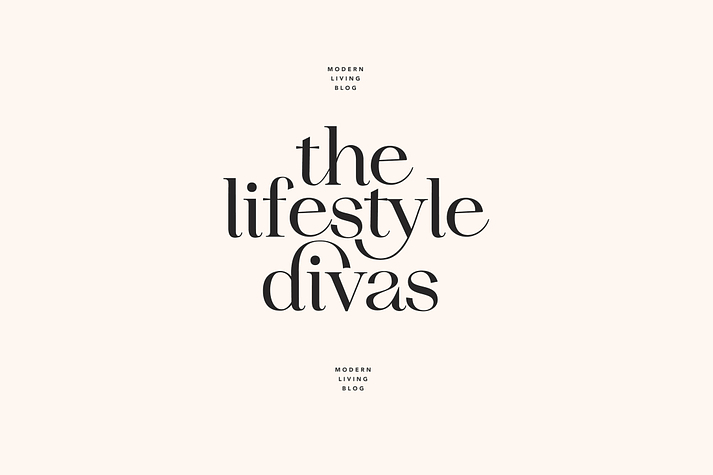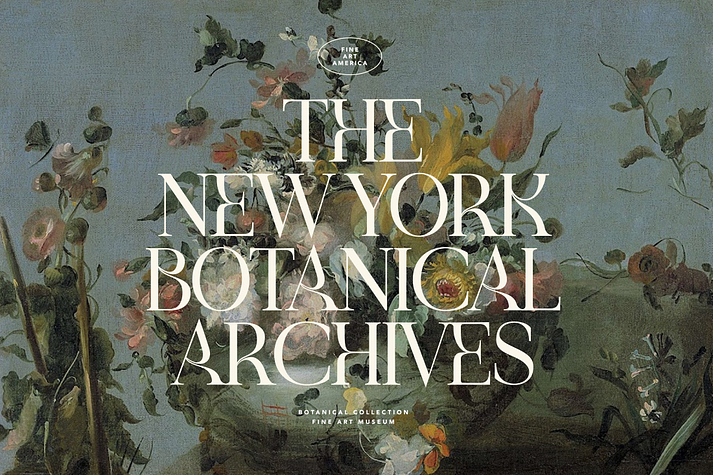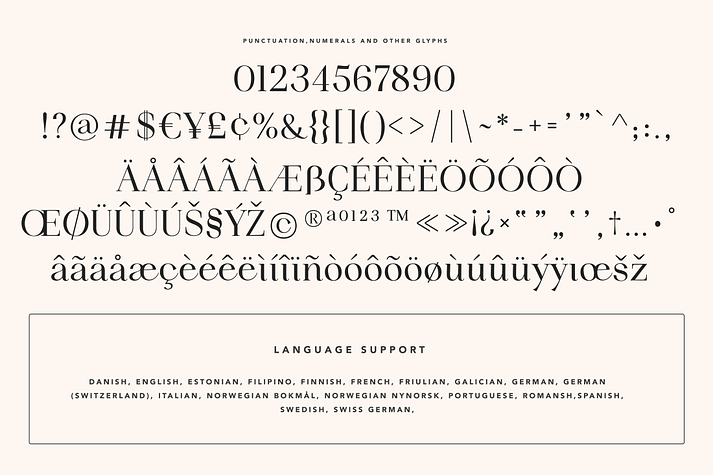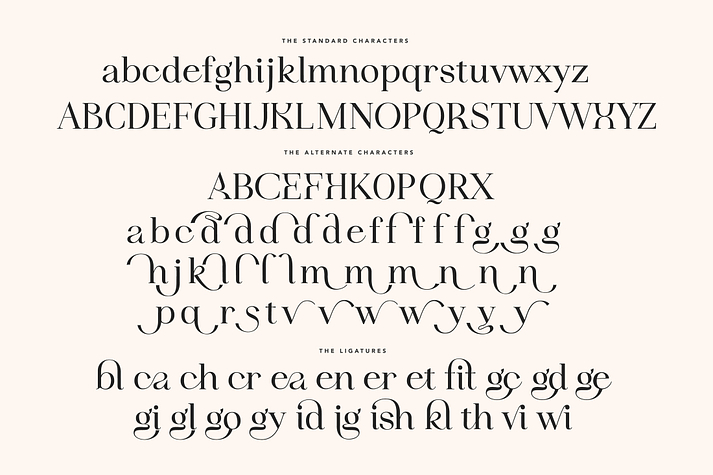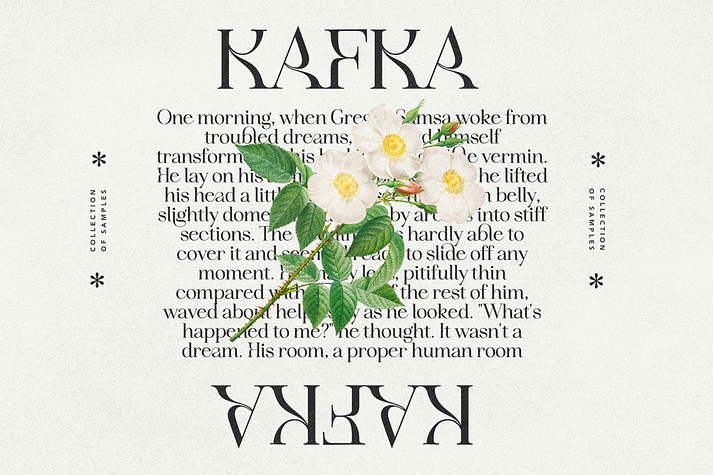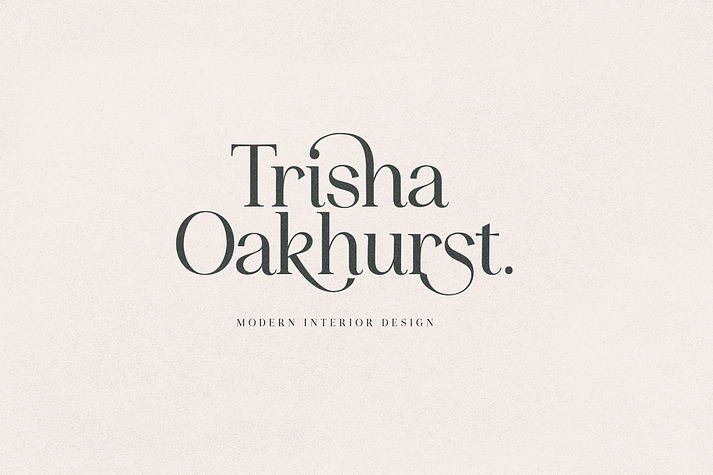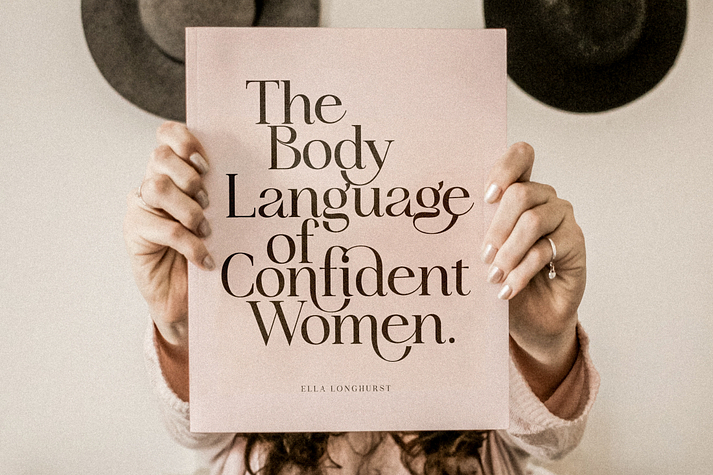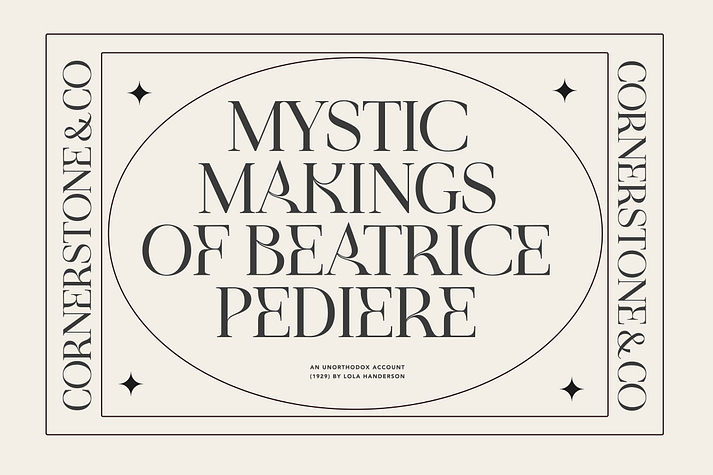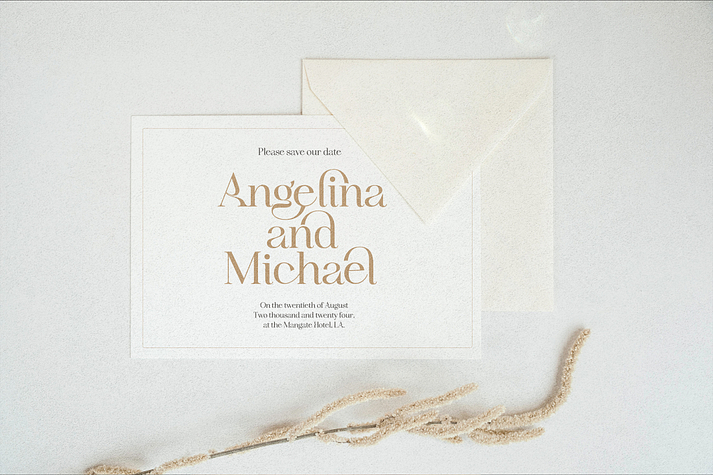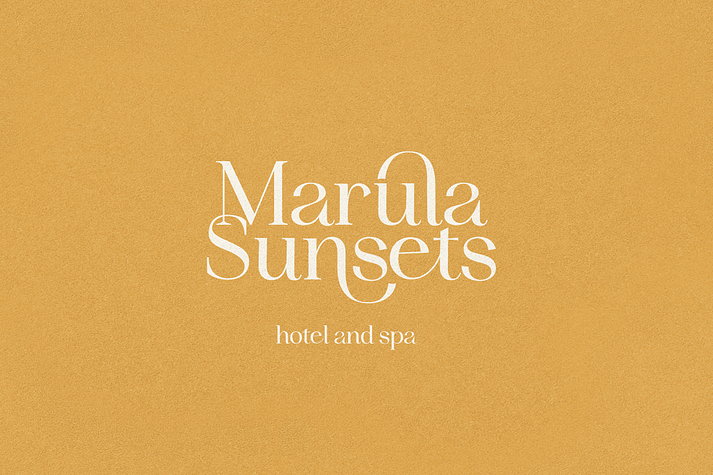
Idealist
Idealist is a display serif and serif font family published by Nicky Laatz.
Idealist Serif - a stylish OpenType rich serif with letters that seem to dance and twist harmoniously together -  to form unique & elegant typography designs.
A large selection of interwoven Opentype ligatures and alternates means ample selection and variety in your finished look.